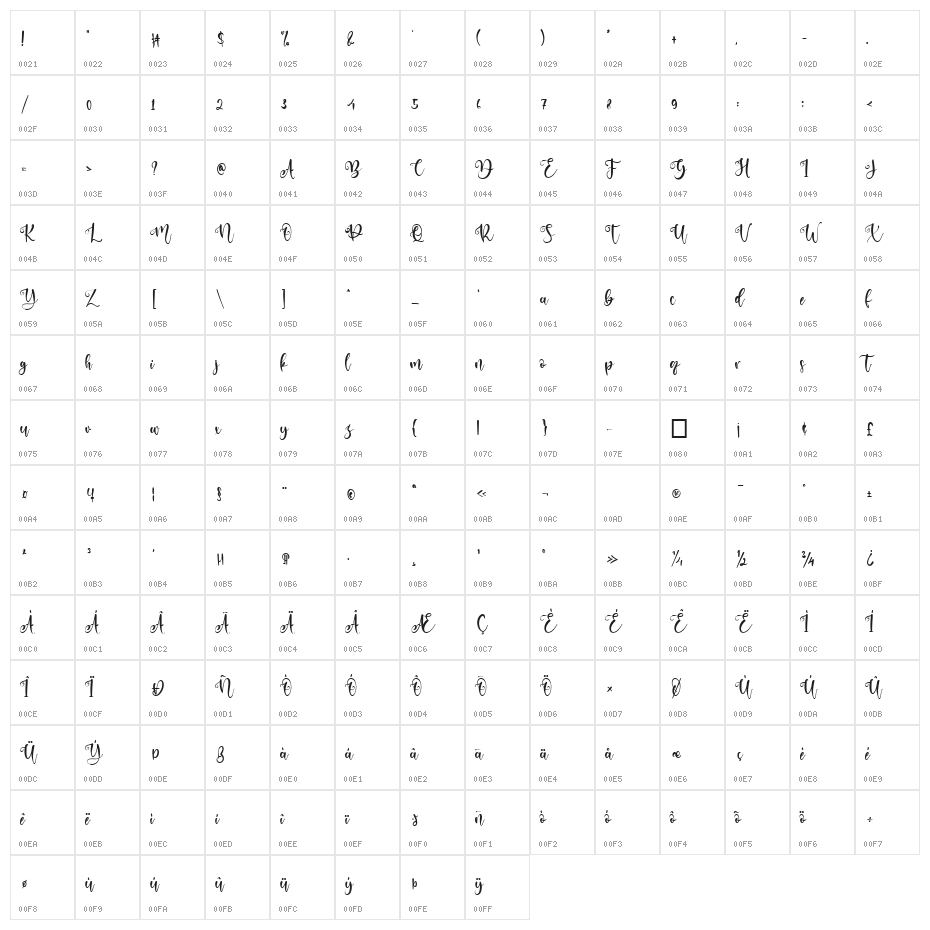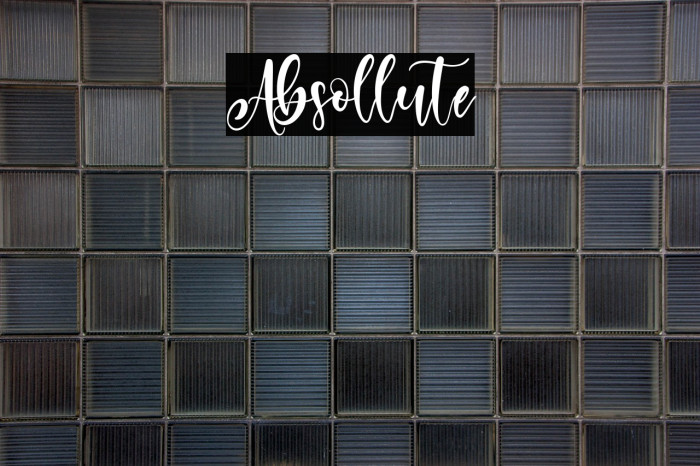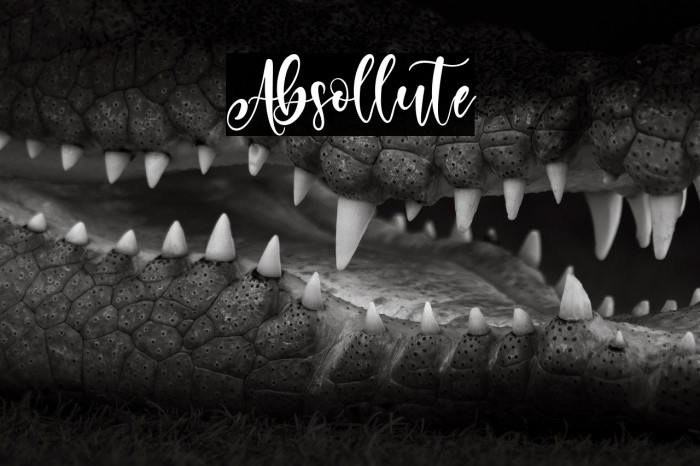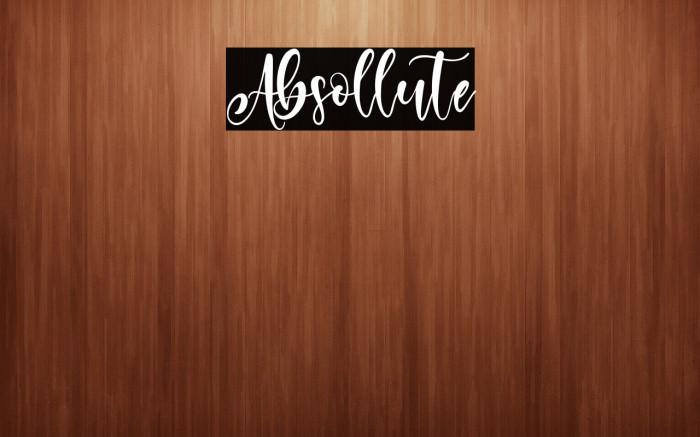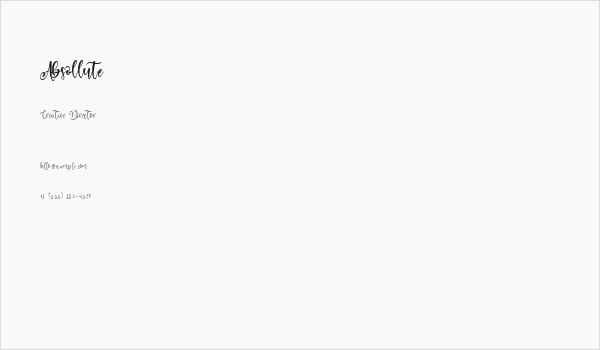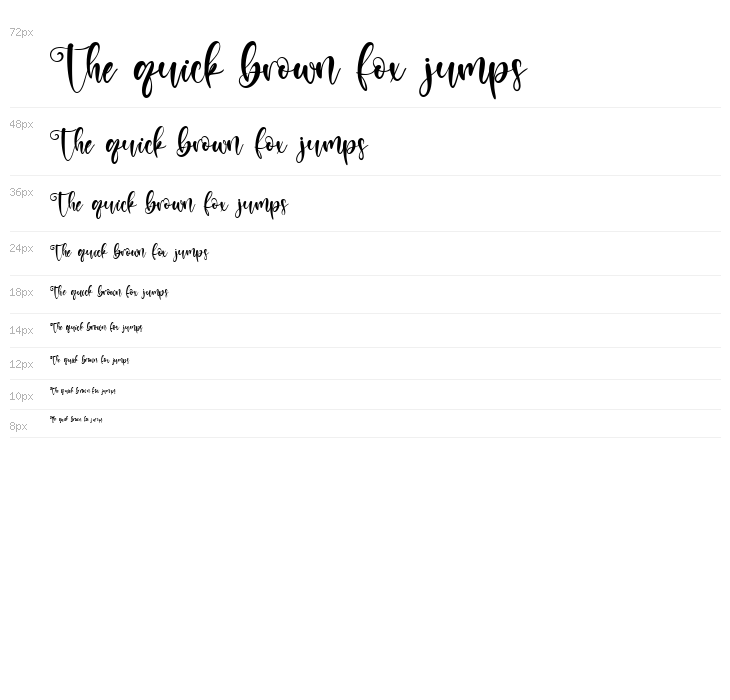
Absollute Font
Absollute Description
This font features an elegant and flowing script style, characterized by its ornate and decorative swirls and loops. The uppercase letters are particularly elaborate, with flourishes that extend beyond the baseline and cap height, giving it a sophisticated and artistic appearance. The lowercase letters maintain a consistent style, with smooth curves and a slightly more restrained use of embellishments. The numerals are designed to match the overall aesthetic, with a playful yet refined look. The special characters complement the font's style, adding to its versatility for creative projects.